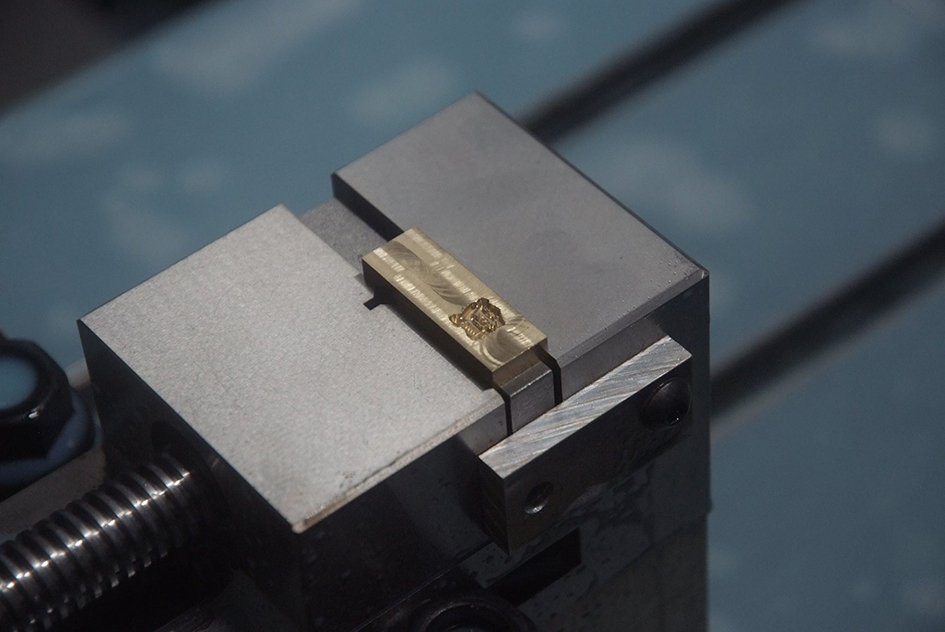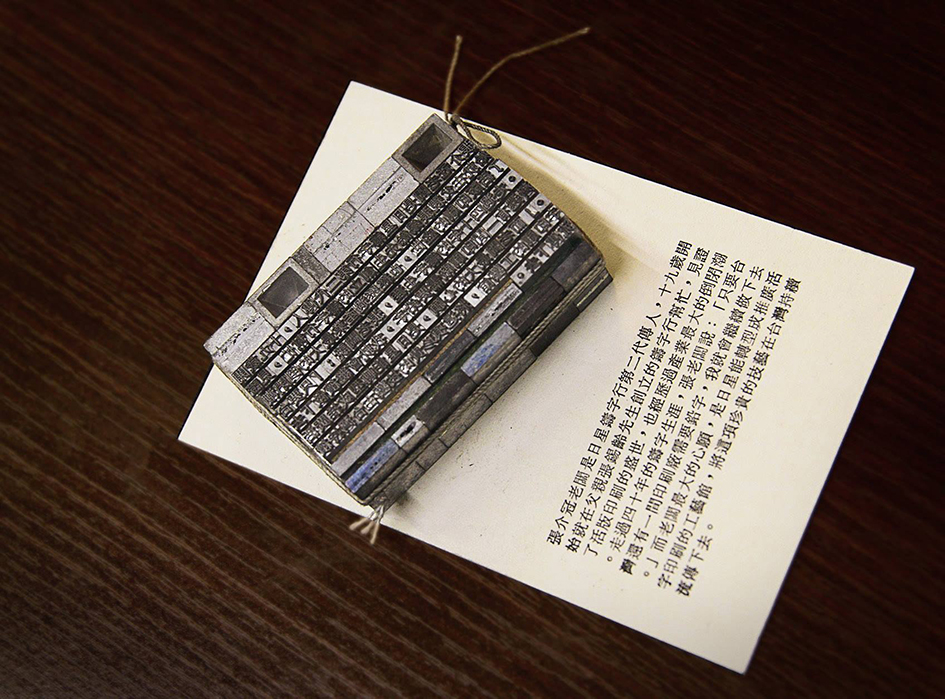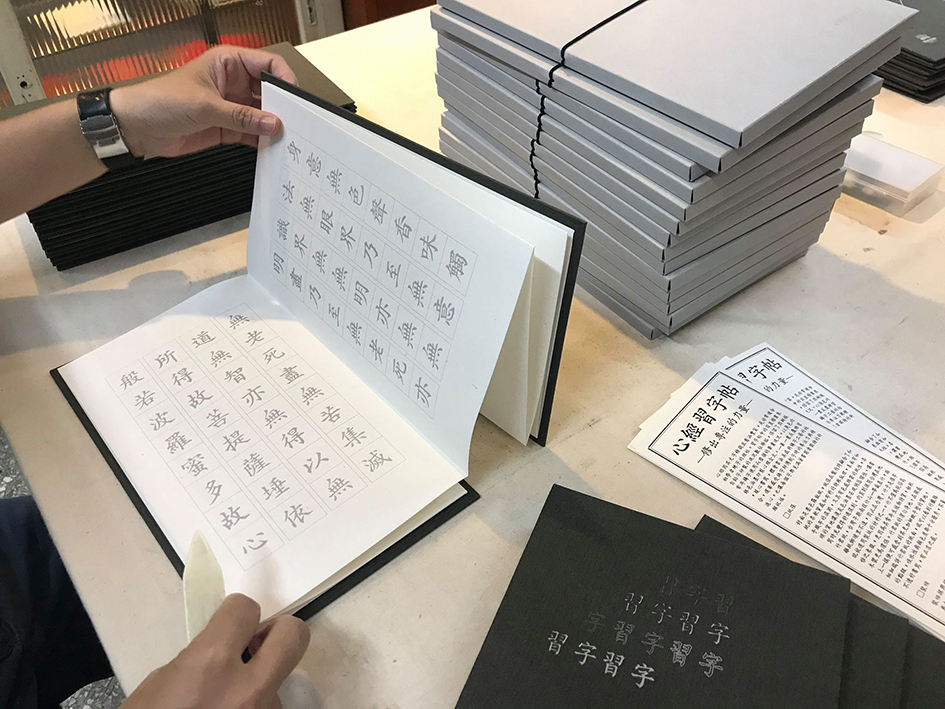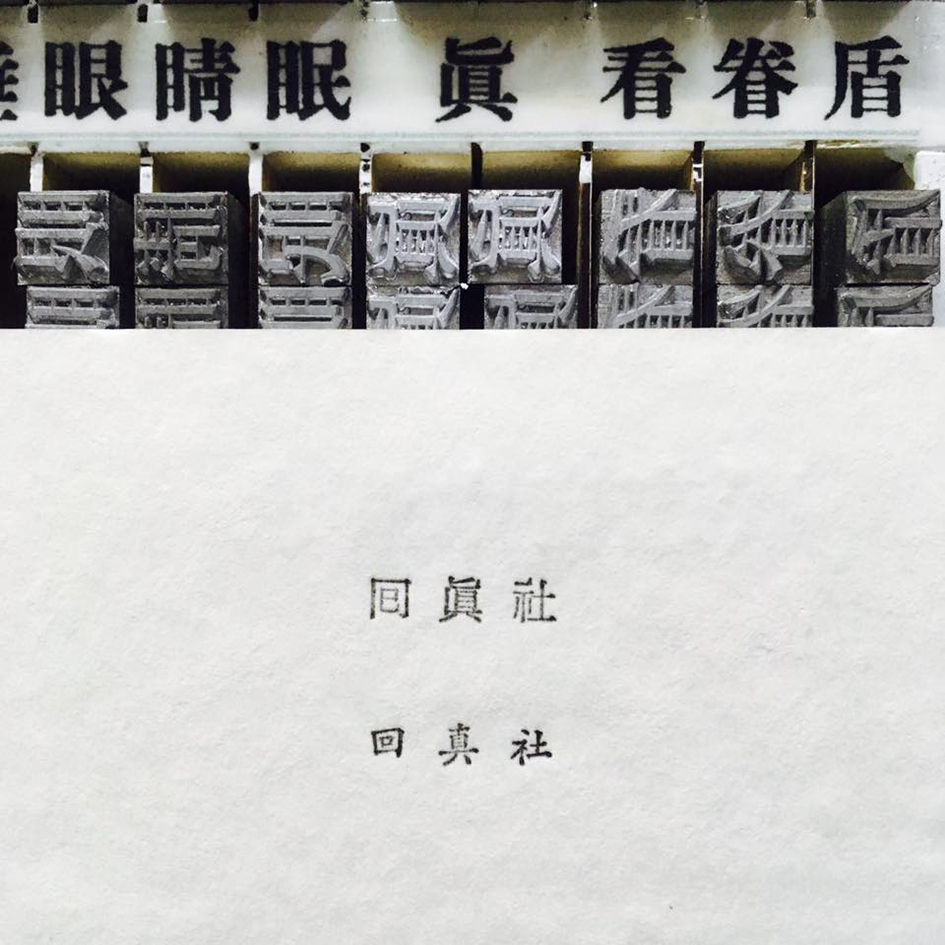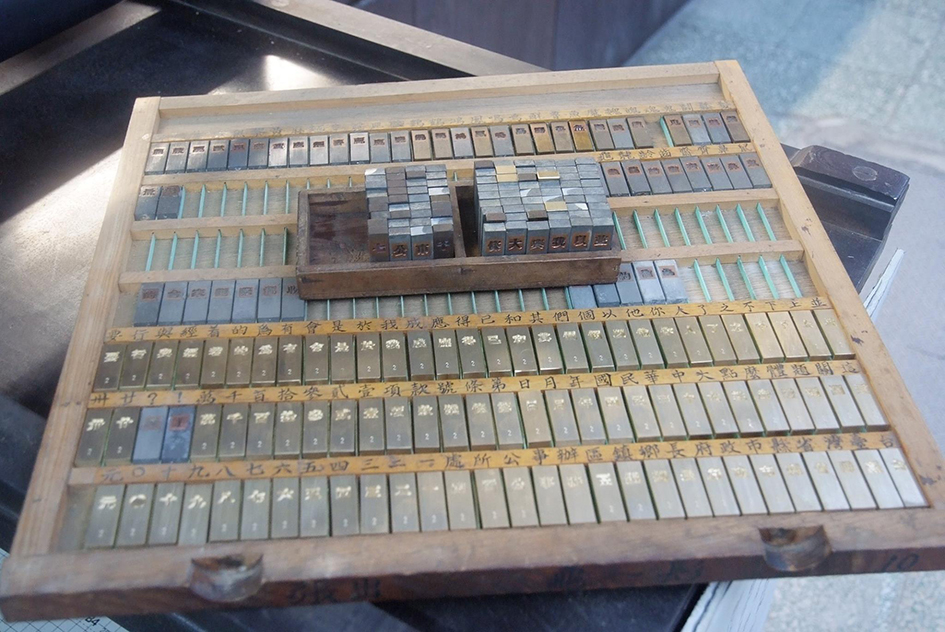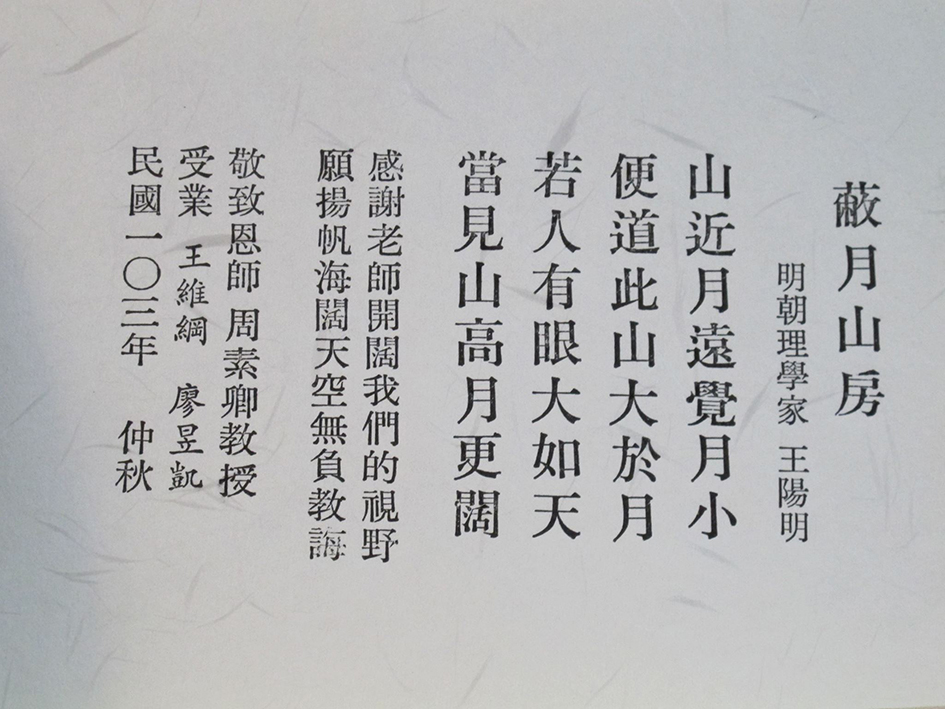
Rixing Type Foundry is the Chinese typographic gem we should know
Possibly home to the last remaining collection of traditional Chinese movable type character molds in the world, Rixing Type Foundry "possesses 120,000 molds of different characters in a wide range of sizes and three different typefaces — kai ti (楷體) (regular script), song ti (宋體) and hei ti (黑體) (sans-serif black) — and has more than 10 million lead character pieces for printing or sale".
Tucked into Taipei’s Taiyuan Road, the printing foundry is home to the last remaining collection of traditional Chinese movable type character moulds our world has to offer with techniques that have been recognised since the Song Dynasty in 1040s.
Chang Chieh-kuan, the owner of Taiwan’s last Chinese letterpress is also one of the last remaining lead-character makers in the world.
Having inherited this foundry from the founder, his father, back in 1969, Chang is on a double mission. To save his legacy and, most importantly, to preserve the endangered cultural asset of Chinese letterpress printing against the advent of new technology and the digital evolution. For Chang this technique has to be preserved.
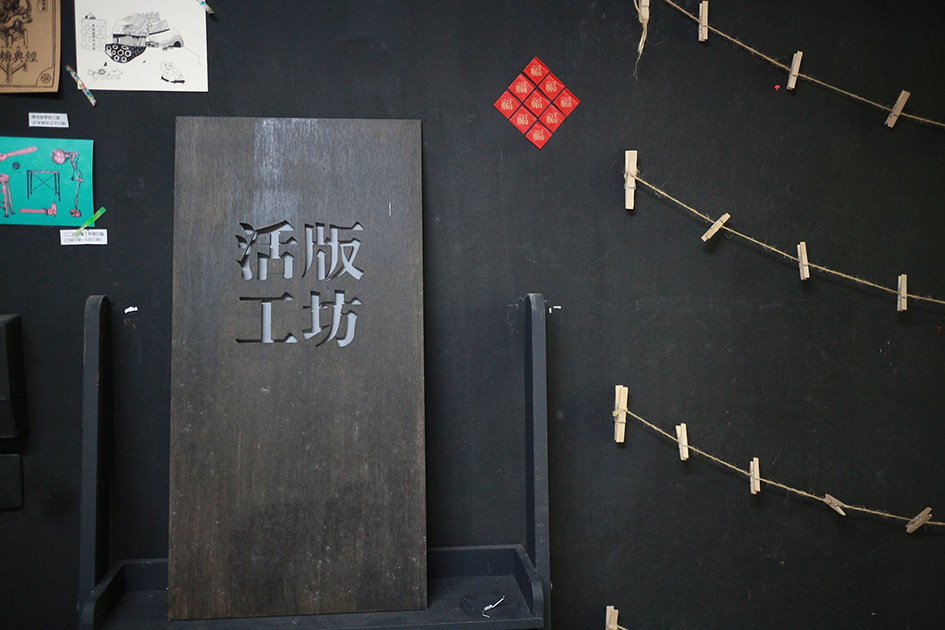
Back in the roaming 60s, Taipei alone was home to 5,000 printing presses. Almost half a century later only 30 establishments remain with Rixing being the last print foundry in the capital.
Rixing has one of the largest collections of three-dimensional Chinese characters in Taiwan, with 120,000 molds of different characters and more than 10 million lead character pieces. Here there are more than 10,000 characters in each size that are still in use with the oldest set of type having been preserved for more than 100 years.
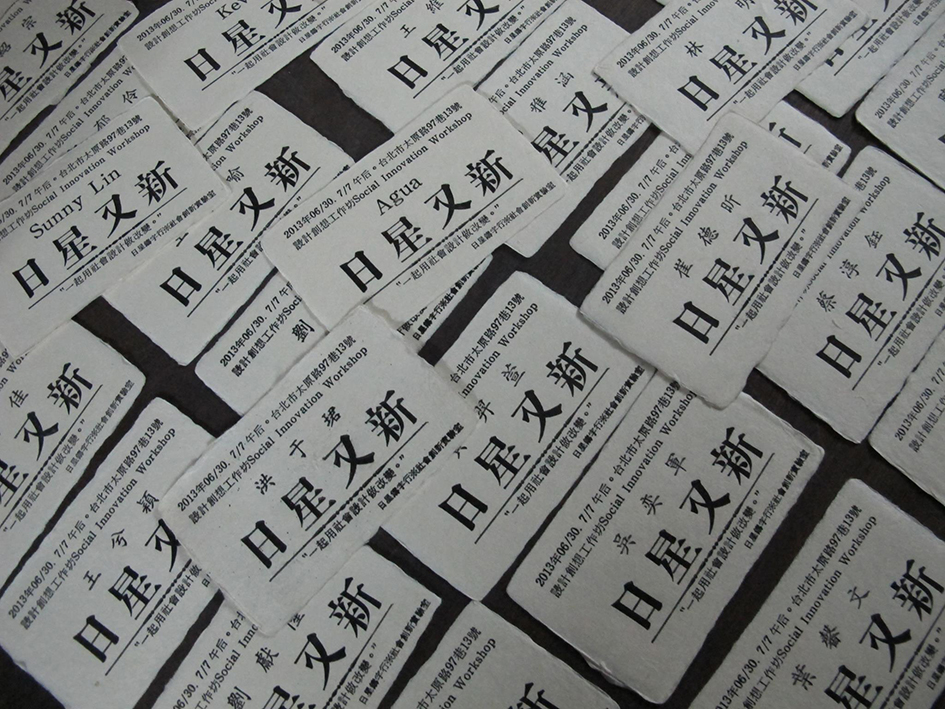
Chang and his team are also working hard to digitalize 150,000 characters to help perfect their lead-type version in this type foundry which is a stunning reference library of Chinese typefaces, a shop and literally an interactive craft museum which preserves the history of the movable lead type.
Earlier this year Rixing "launched a type bronze mold restoration project in the hope that an online fundraising program would help raise the funds needed to preserve its endangered bronze molds so that they can be passed on in their entirety" reports The Taipei Times.
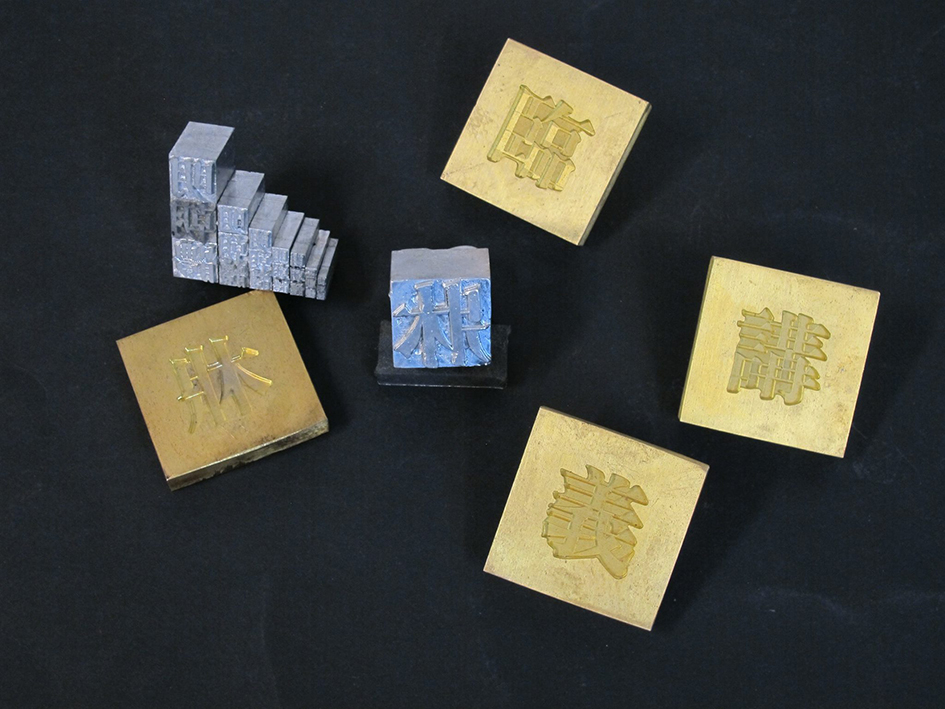
“We want not only to preserve lead type, but also an era,” Chang said in a post on the project’s Web site at rixing2017.com. “The ideal situation would be for people to express their support for the preservation of this culture through their everyday life choices,” he said.